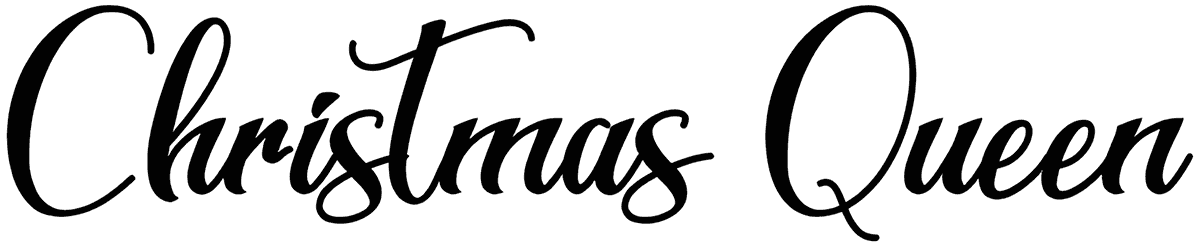
Christmas Queen Font
With a modern calligraphy font, you can return a simple text to an elegant and delightful one. Christmas Queen, with its dancing lines, is a nice face for a lot of projects such as flyers, Christmas designs, postcards, and more the same. It should be noted that this invitation font doesn’t support punctuation marks but still can be harmonized with various subjects.